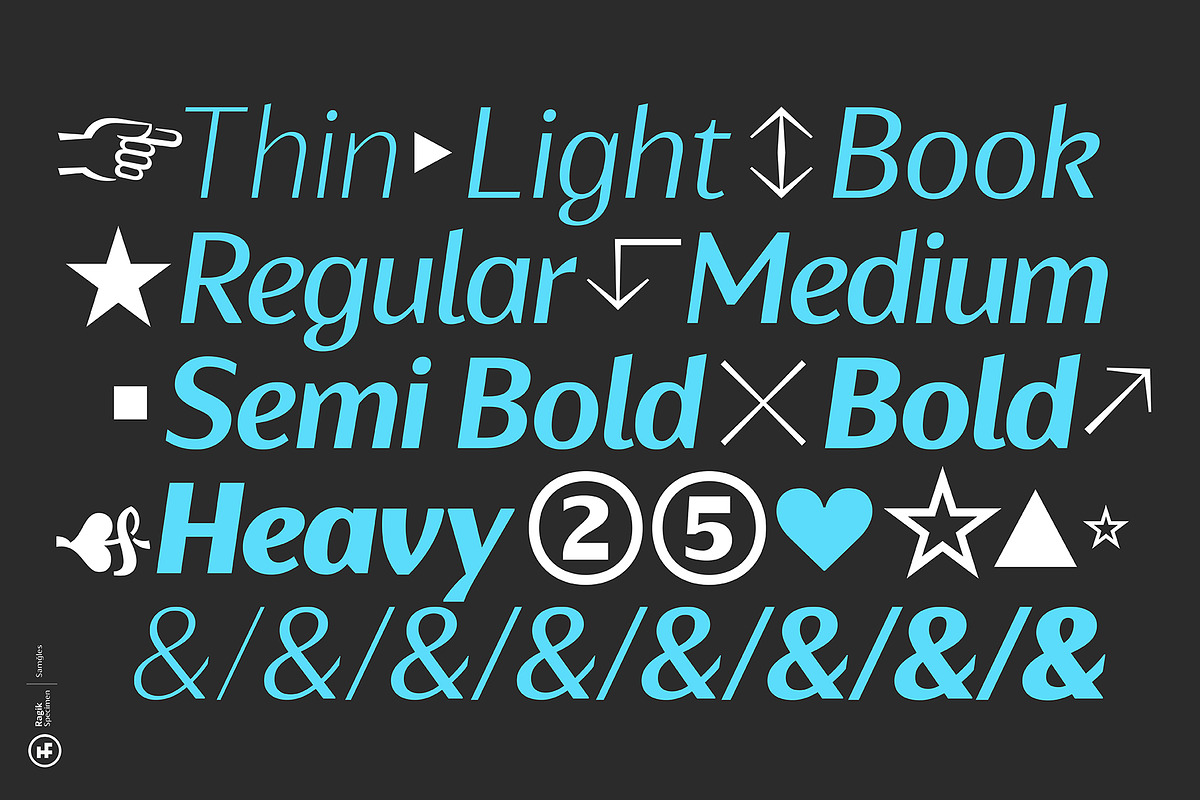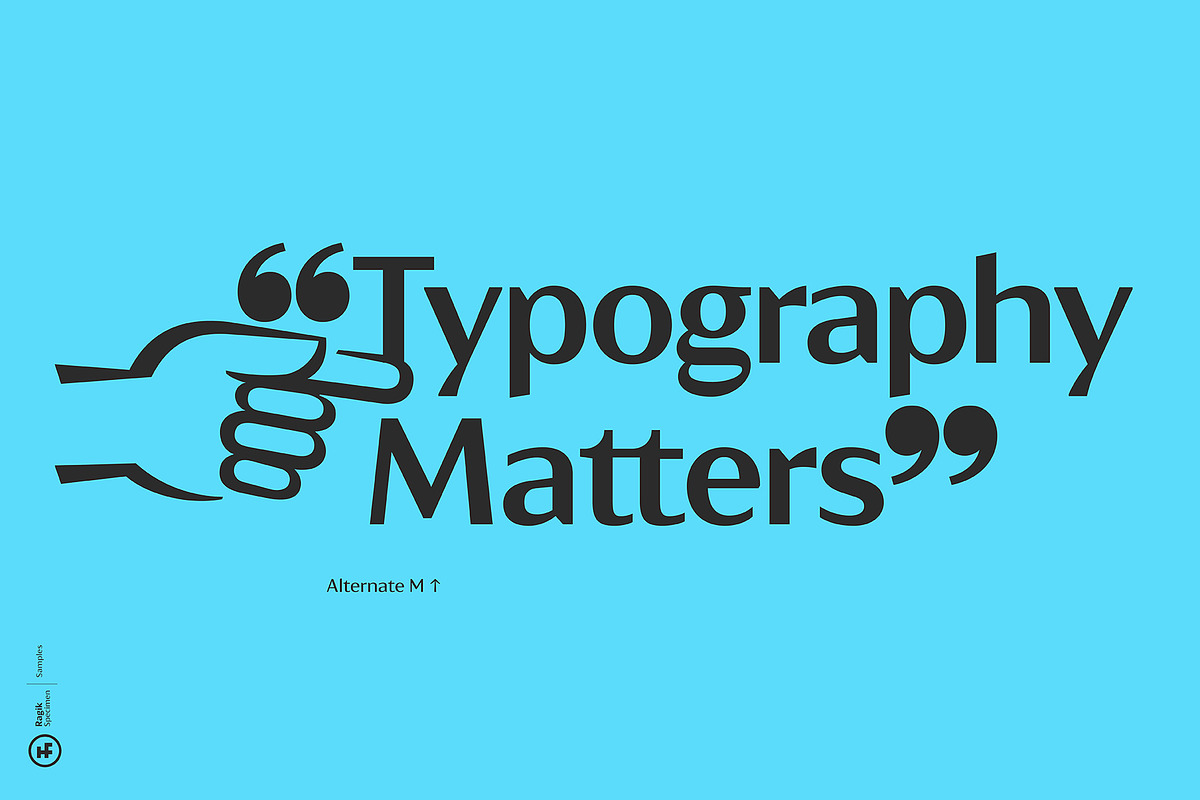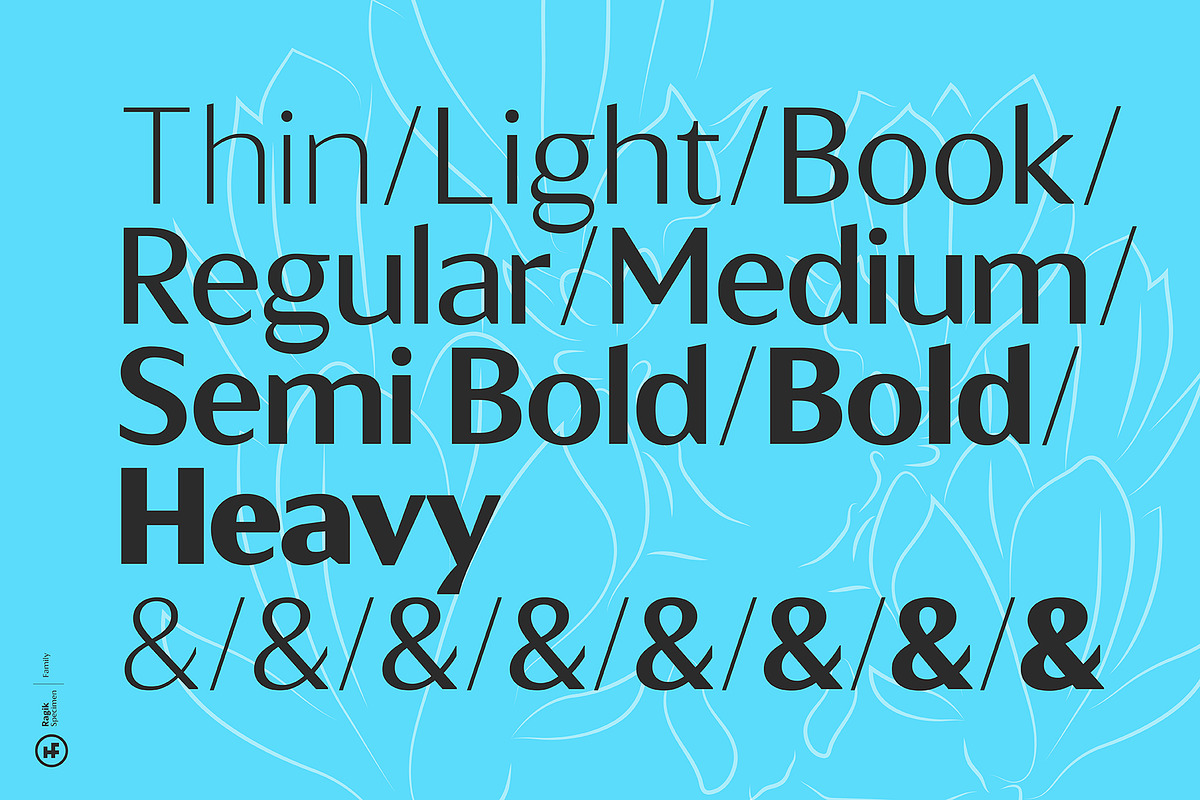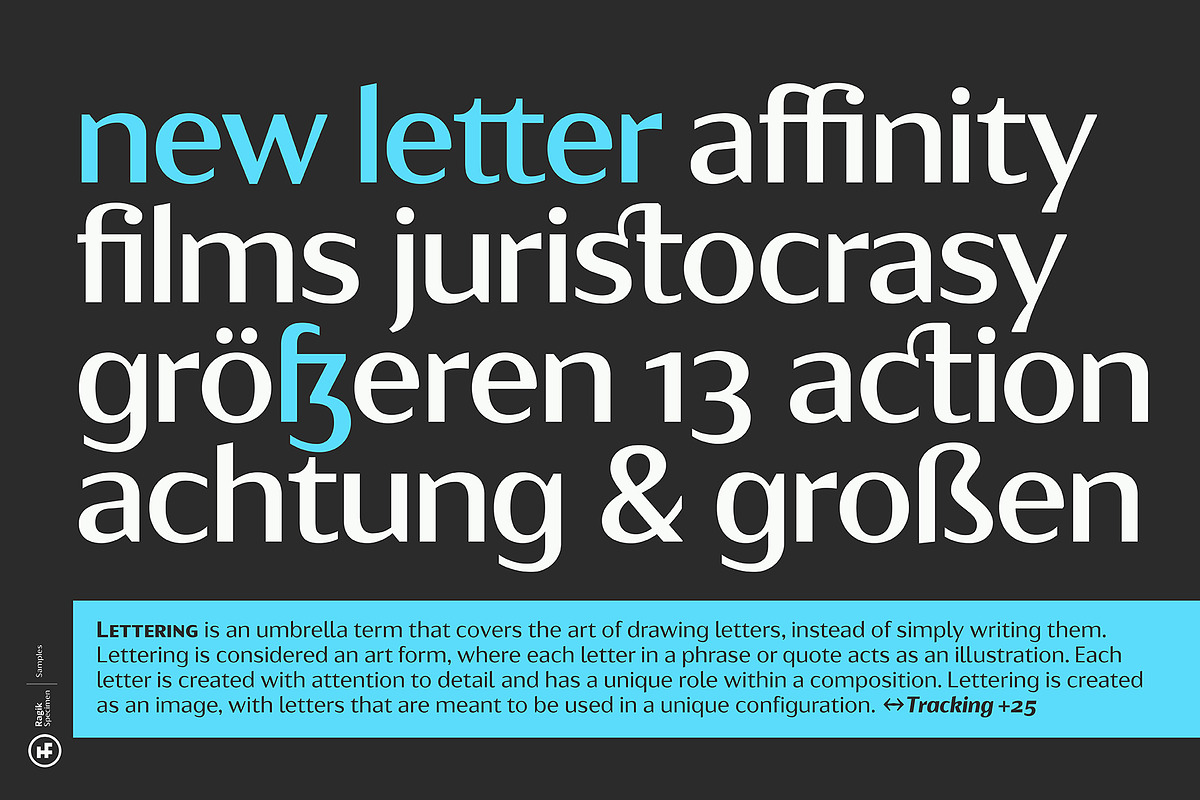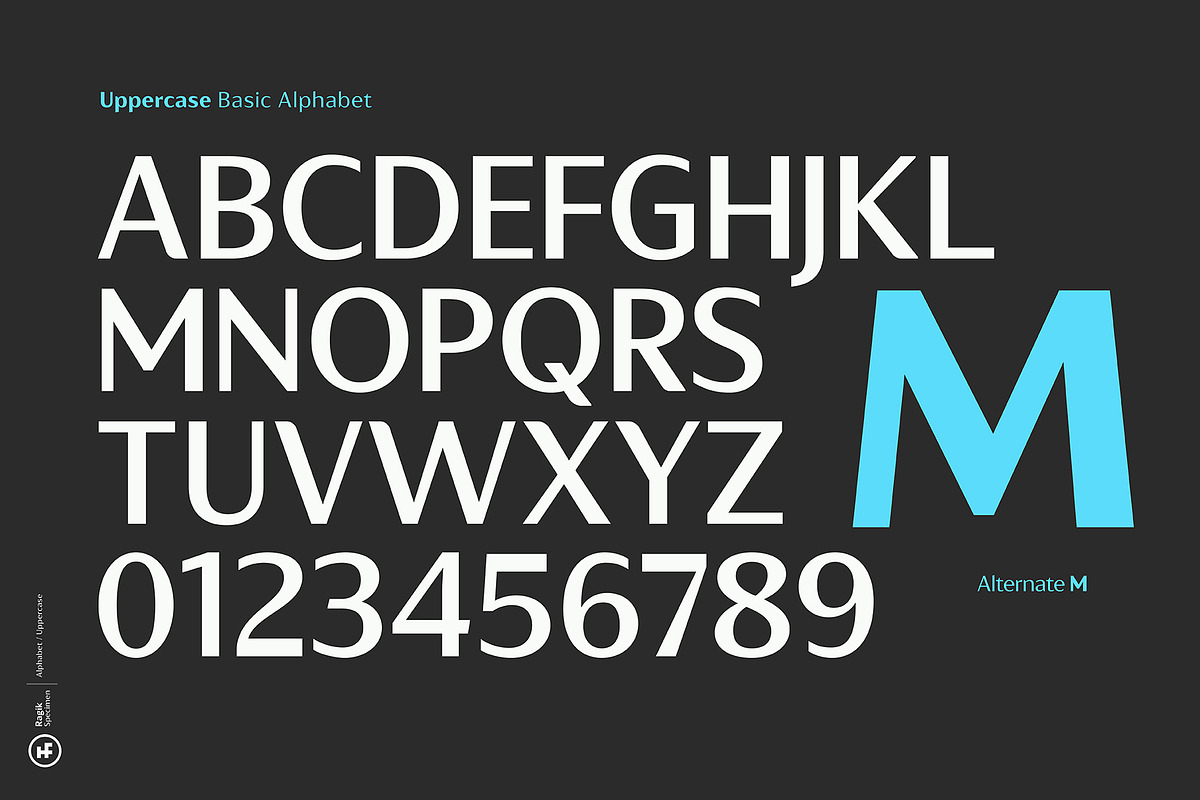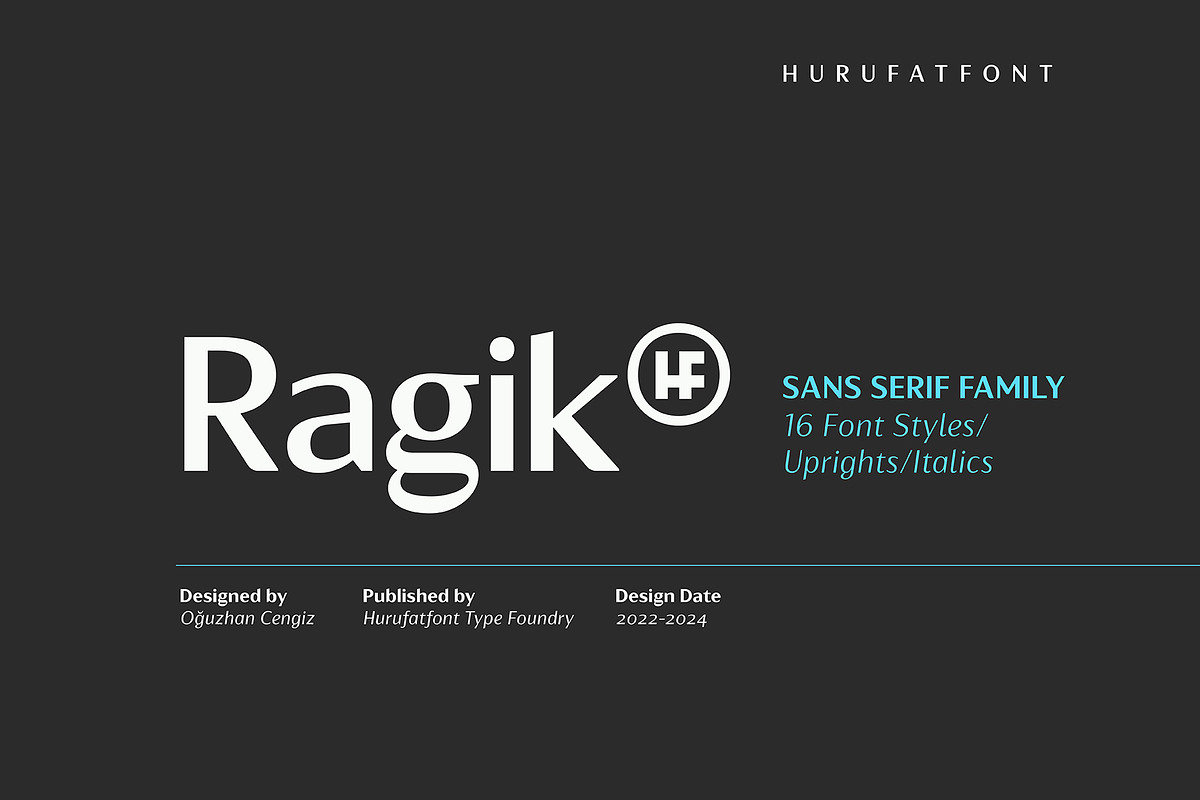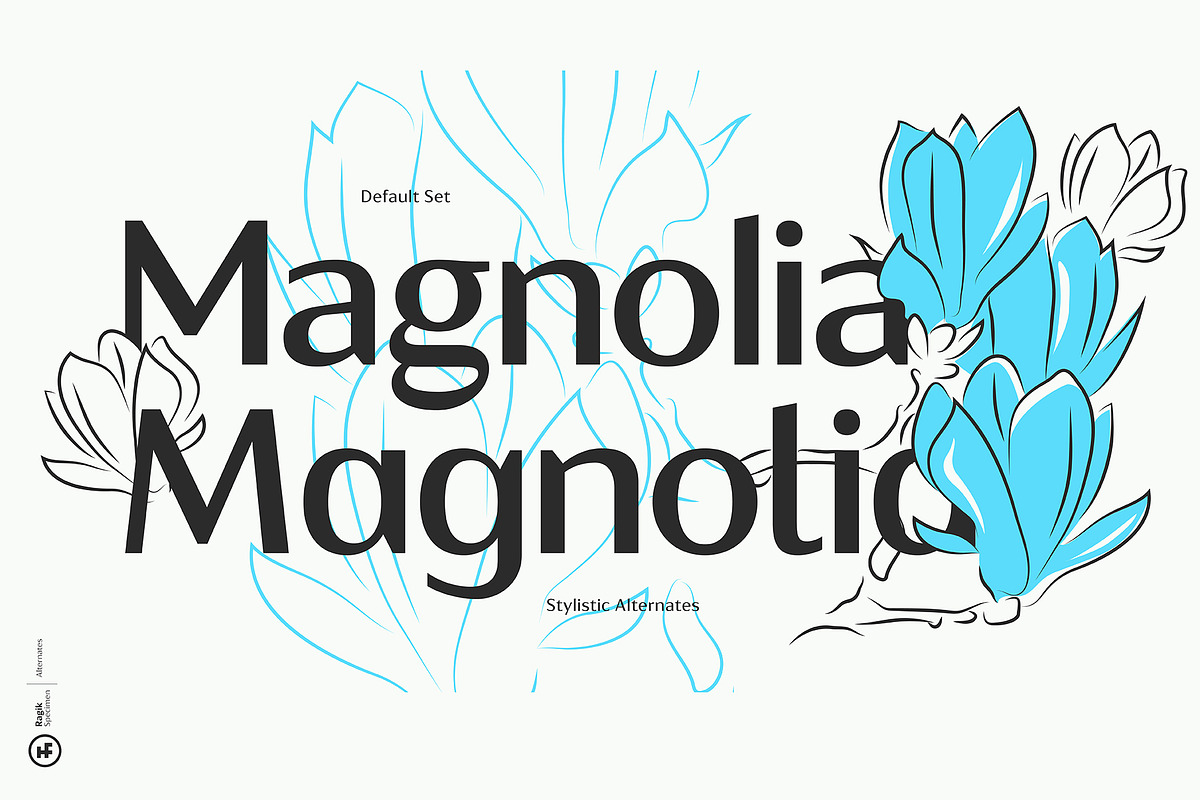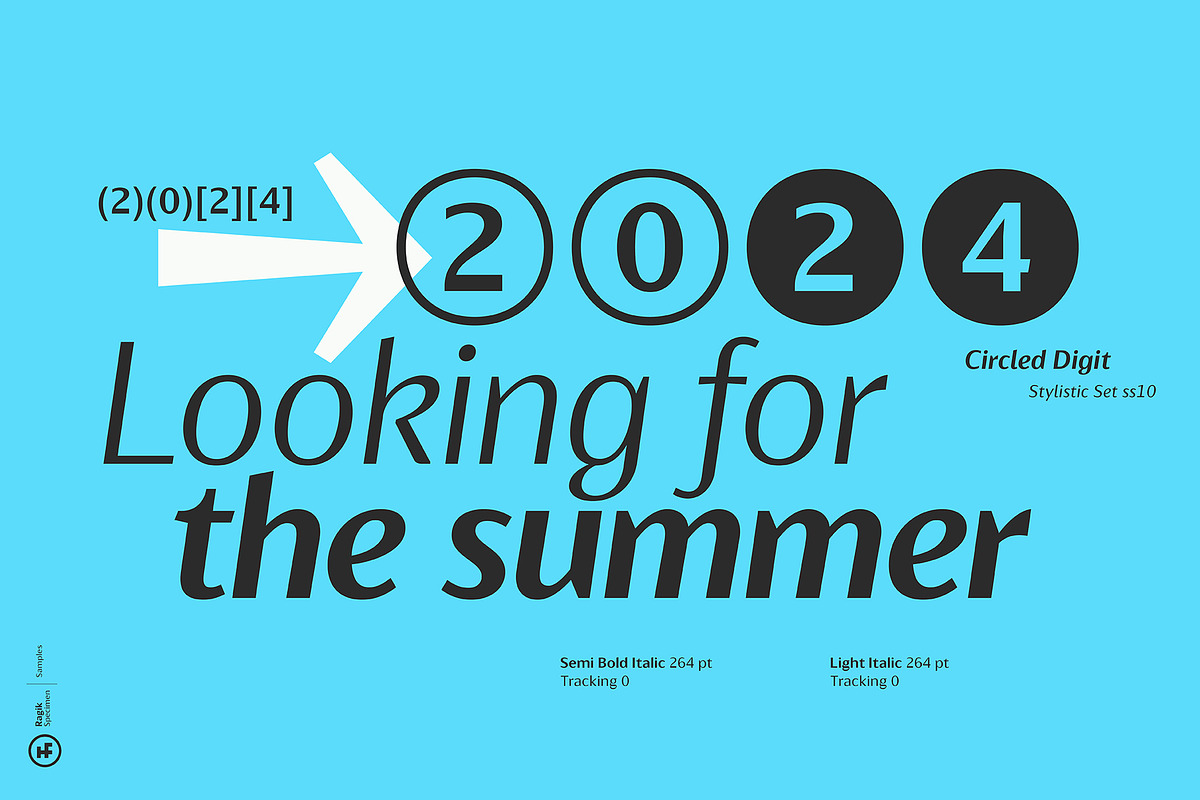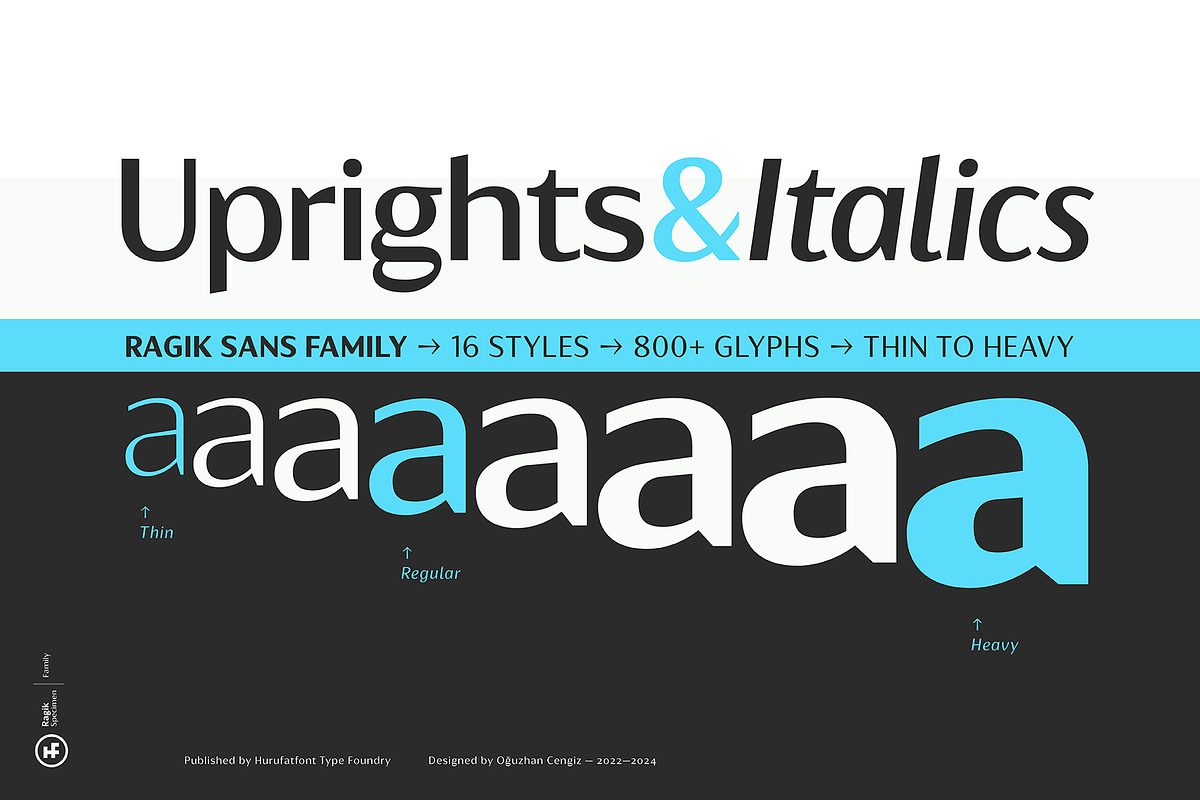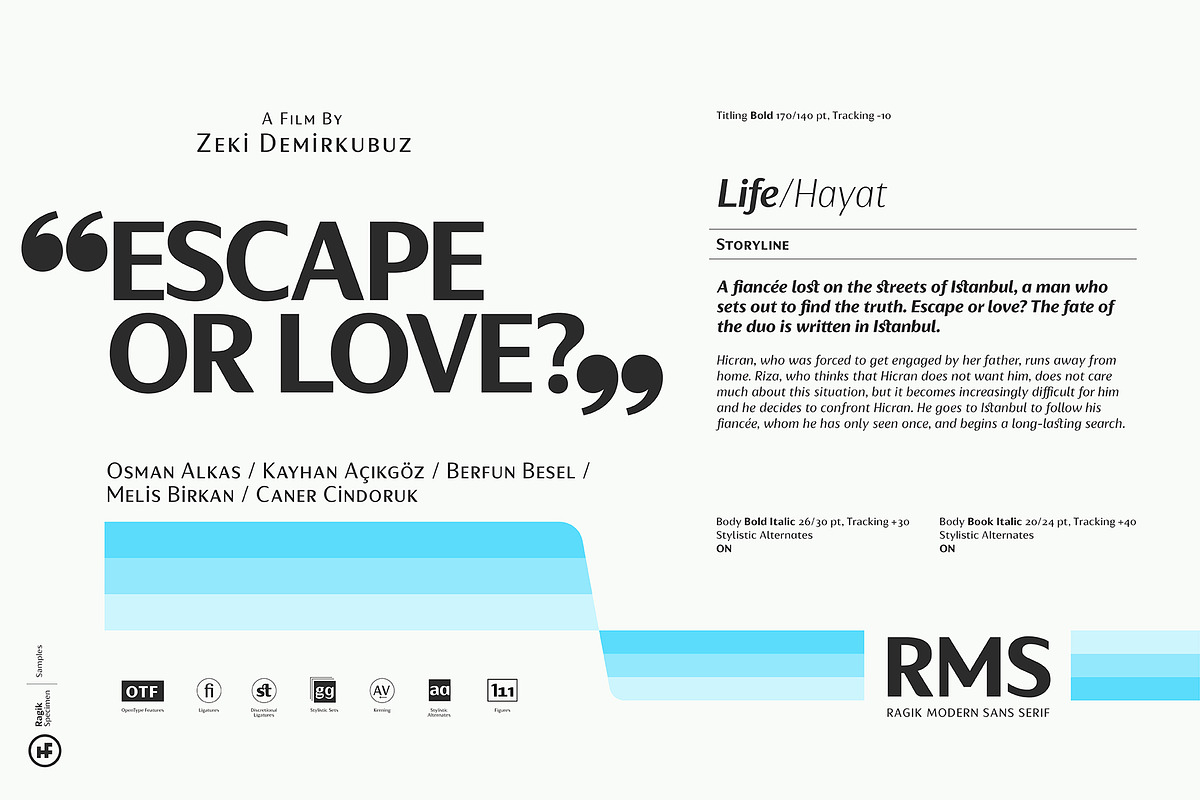
Ragik Sans
Ragik; It is a low-contrast sans serif font family with two accents. The letters are designed with a clear and simple elegance, devoid of ornaments. The open terminals of the letters “S, C, G, s, a, c, e” are elegant and legible with their large open areas. It consists of 16 styles, from thin to heavy, with true italics. Ideal for modern typographic posters, packaging and branding designs. It comes with rich OpenType features. Alternating glyphs, elegant and functional ligatures. All number sets (tnum, onum, lnum, numr, denom, sinf, sups etc.) have a rich symbol library with ornaments and arrows.
OpenType Features: Access All Alternates, Small Capitals From Capitals, Contextual Alternates, Case-Sensitive Forms, Capital Spacing, Discretionary Ligatures, Denominators, Fractions, Kerning, Standard Ligatures, Lining Figures, Localized Forms, Numerators, Oldstyle Figures, Ordinals, Proportional Figures, Stylistic Alternates, Scientific Inferiors, Small Capitals, Stylistic Set 1, Stylistic Set 2, Stylistic Set 3, Stylistic Set 4, Stylistic Set 5, Stylistic Set 6, Stylistic Set 7, Stylistic Set 8, Stylistic Set 9, Stylistic Set 10, Subscript, Superscript, Tabular Figures